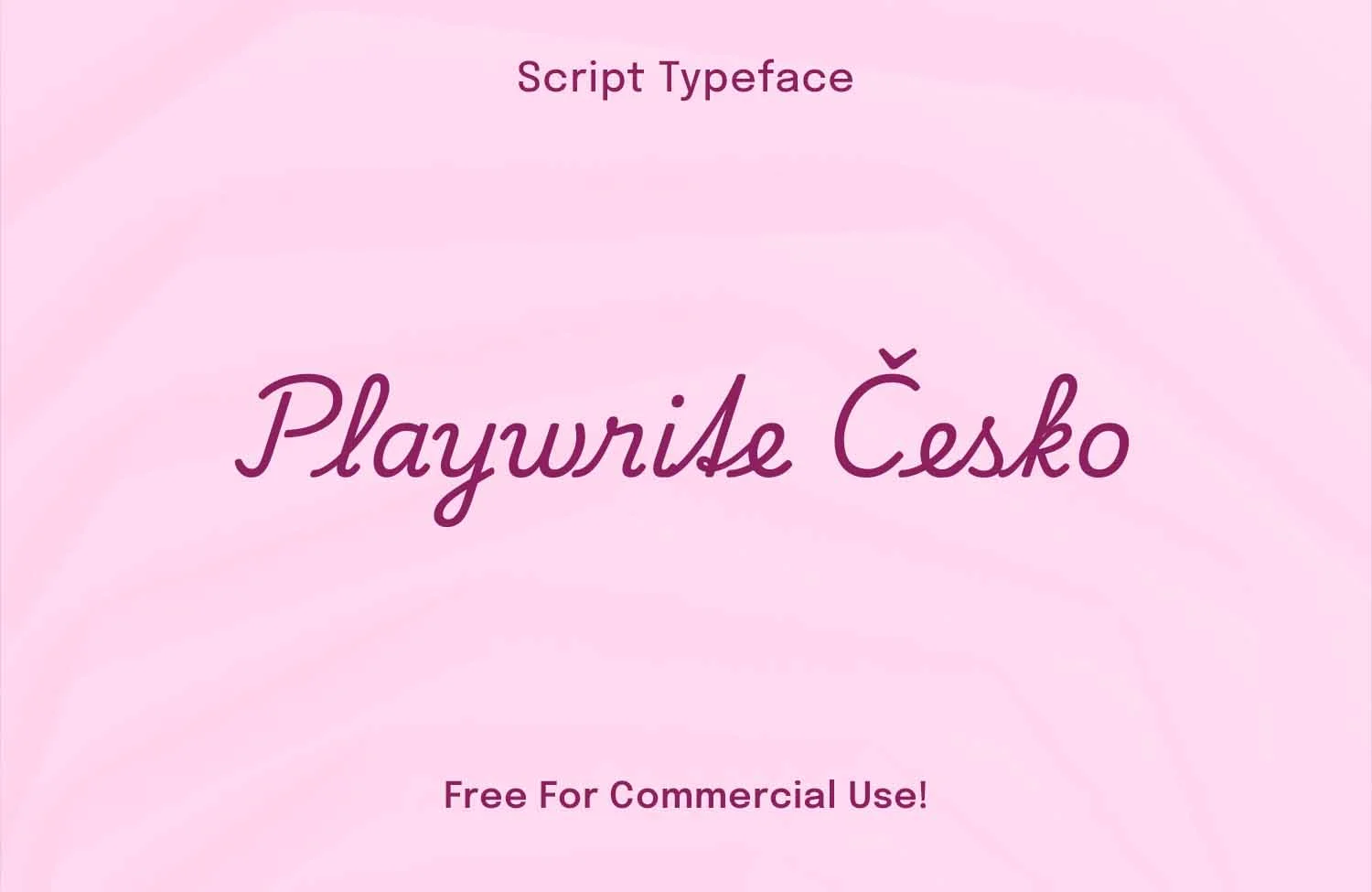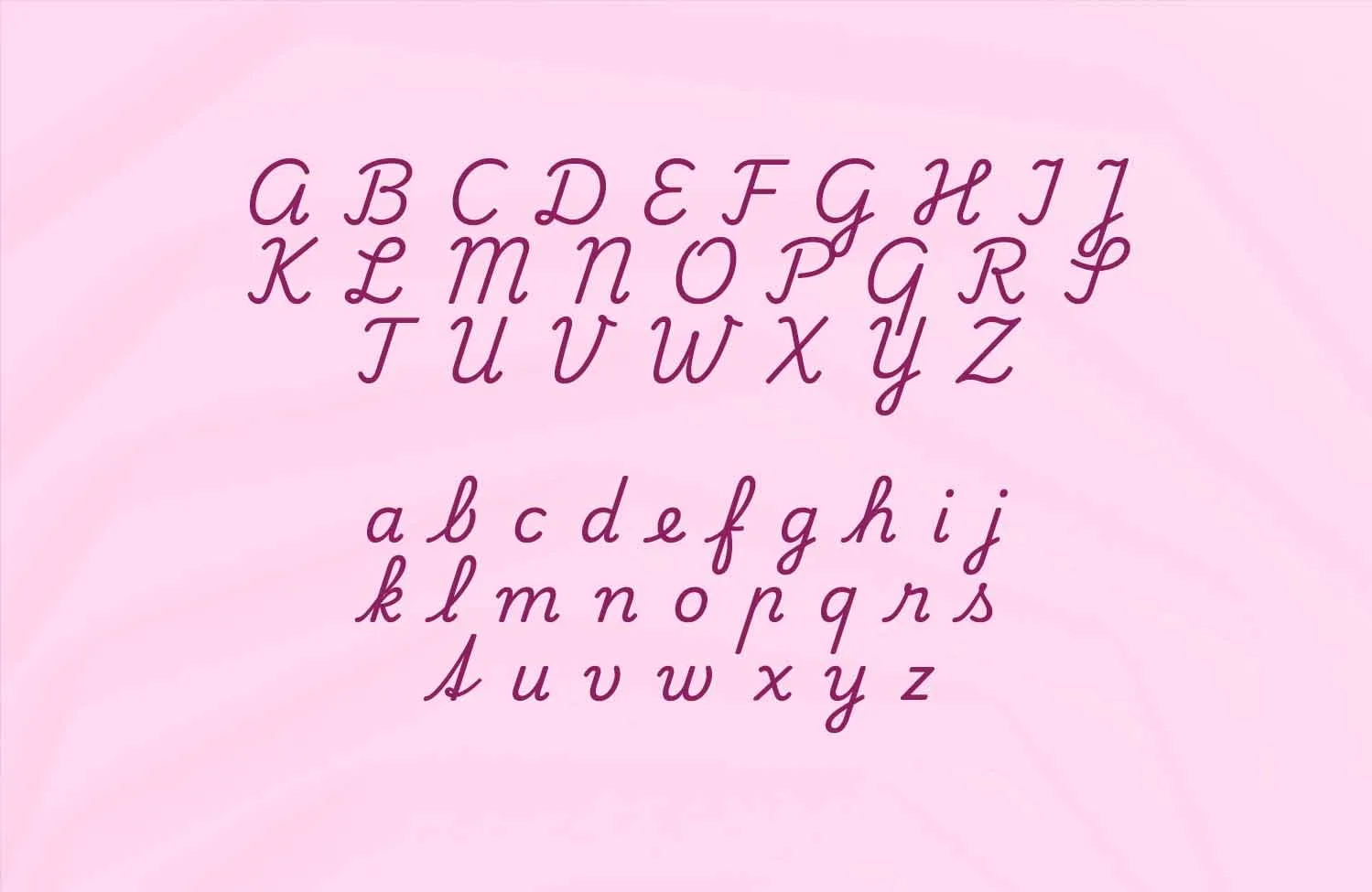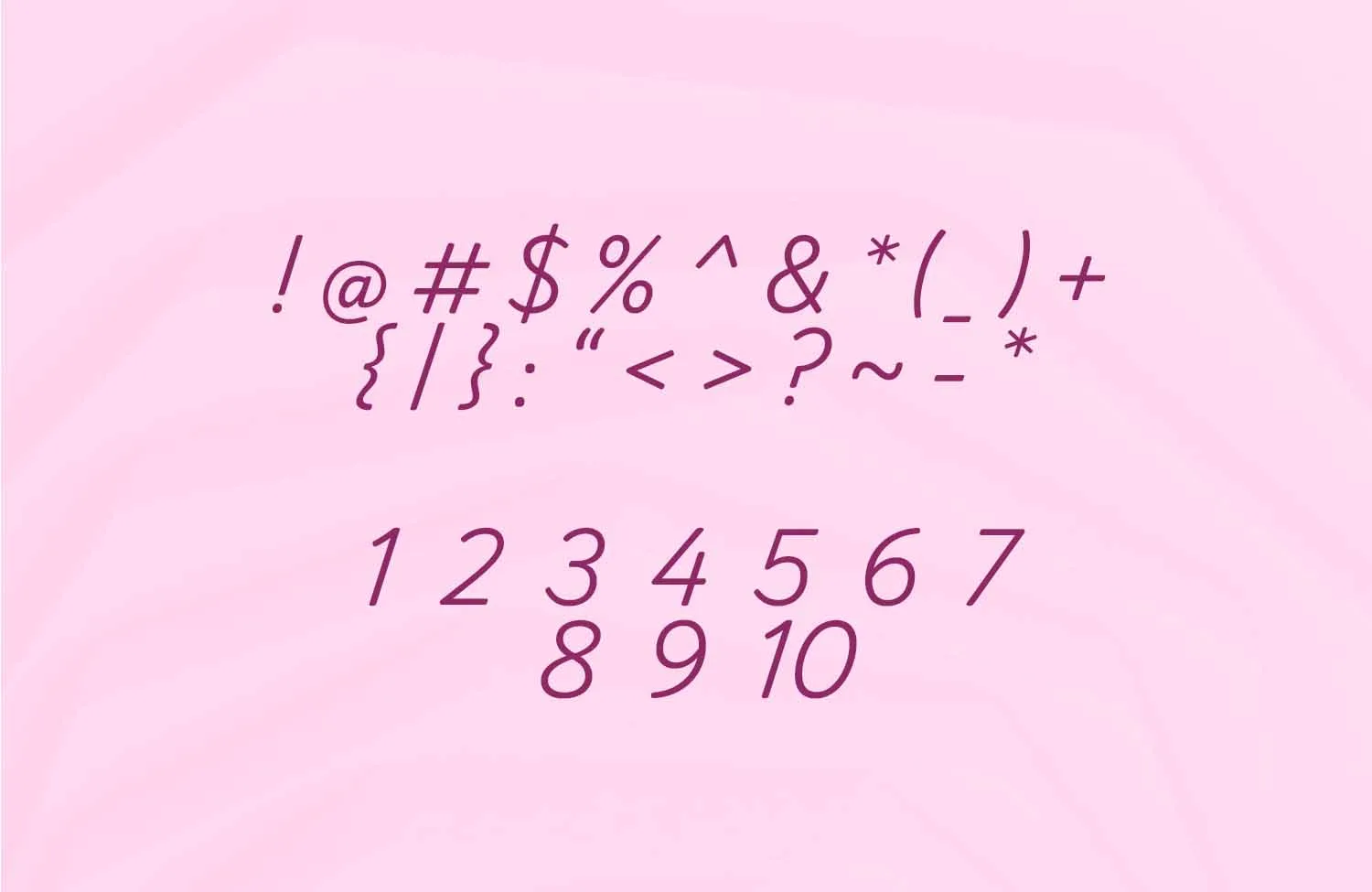
Playwrite Česko is a charming handwritten font designed to bring warmth and personality into your projects. Its strokes feel active and informal, giving your text an authentic handwritten touch without sacrificing clarity. The style is cute, friendly, and slightly seasonal—perfect for designs that need a joyful, human voice. Whether you’re creating educational materials, playful branding, or cheerful graphics, this font brings a light, approachable tone.
A Flexible Variable Font for Many Uses
Playwrite Česko is built as a variable font, offering a weight range from Thin (100) to Regular (400). This gives you the freedom to move from soft, delicate lettering to slightly thicker and more grounded text. The smooth transitions keep the handwritten texture intact while letting you adapt the weight to fit headlines, subheads, or body text.
It also supports over 150 Latin-based languages, making it a practical choice for global projects, multilingual branding, or educational content used across different regions.
Perfect for Schools, Brands, and Creative Projects
This font is especially well-suited for:
School worksheets and learning materials
Storybooks, children’s illustrations, and playful covers
Seasonal designs: Christmas cards, spring graphics, craft labels
Handmade product packaging and small-business branding
Posters, birthday invitations, and social media content
Blog graphics and lifestyle visuals
Because of its soft curves and natural handwritten feel, the font communicates friendliness and warmth. It works beautifully in projects that aim to feel personal rather than strict or corporate.
Designed With Education in Mind
Alongside the variable version, Playwrite Česko has a companion font called Playwrite CZ Guides. This single-weight variant adds helpful letter guides, making it ideal for teaching handwriting to children. The two fonts are crafted to work together seamlessly, ensuring visual consistency whether you’re designing worksheets or classroom posters.
This makes Playwrite Česko a great resource for teachers, curriculum designers, and educational publishers who want materials that feel clear, supportive, and age-appropriate.
High Readability With a Personal Touch
Even though it looks handwritten, the structure remains clean and easy to read. Letters are spaced well, strokes feel natural, and the overall design maintains balance across different sizes. This helps it perform well both on screen and in print. Use thinner weights for light, airy designs or stick with regular weight for bold, handwritten headlines.
Why Designers Love Playwrite Česko
Cute, informal, and active handwritten style
Weight range from Thin to Regular
Supports 150+ Latin languages
Perfect for education, crafts, branding, and seasonal themes
Clean readability with a warm personality
Comes with a companion “Guides” font for teaching handwriting